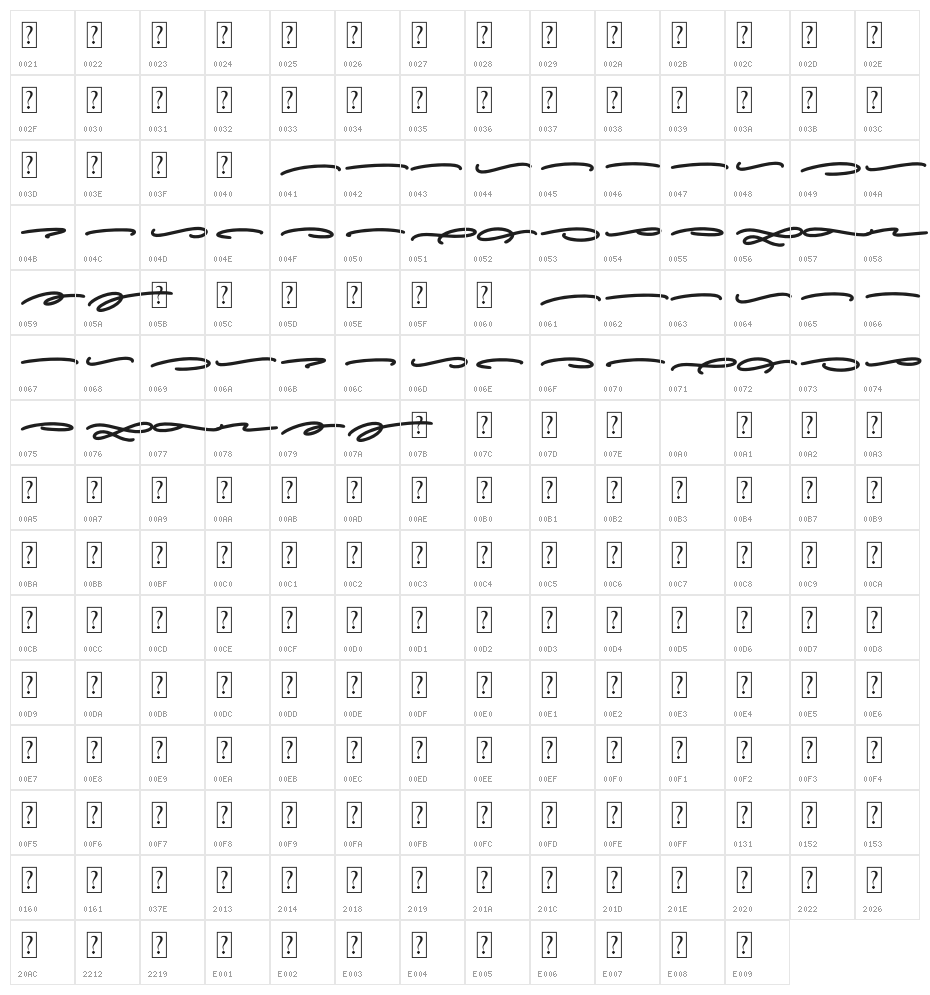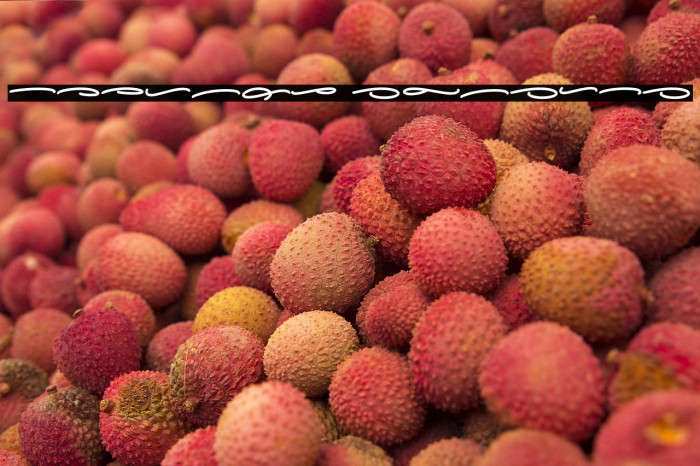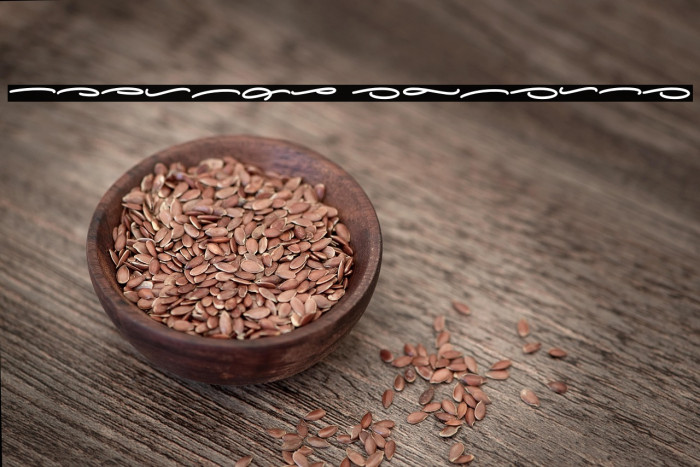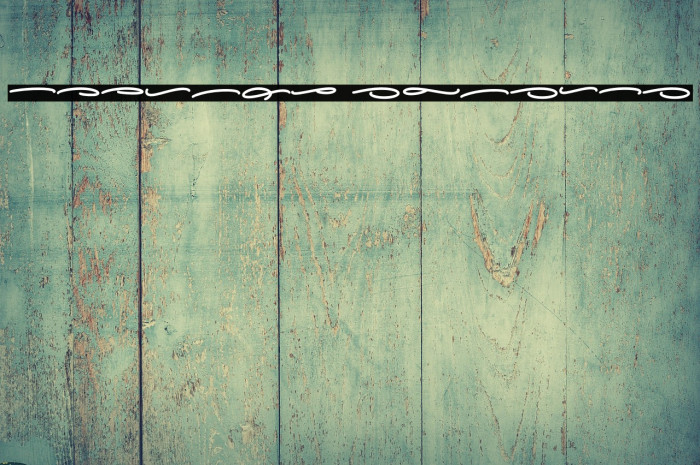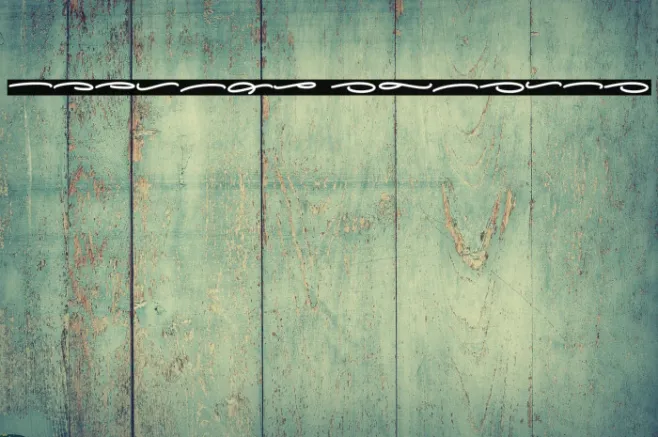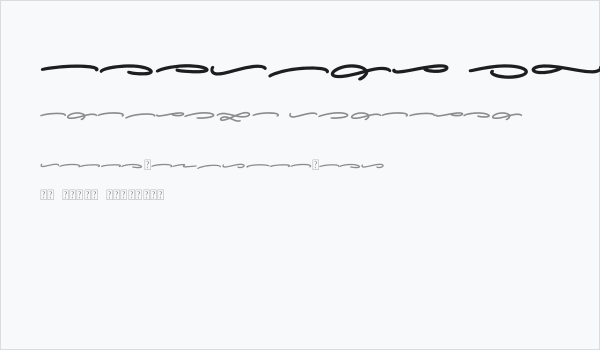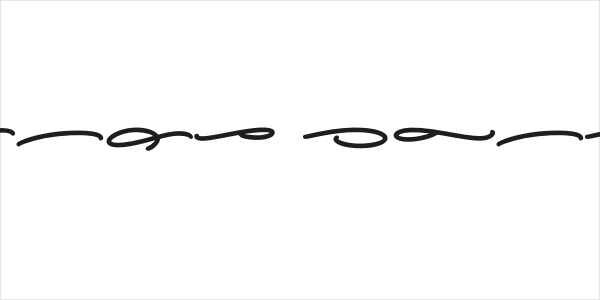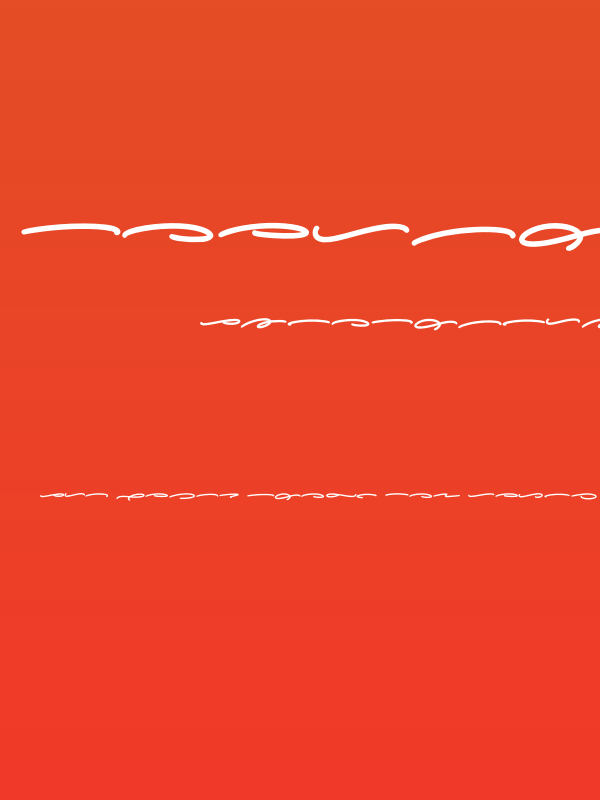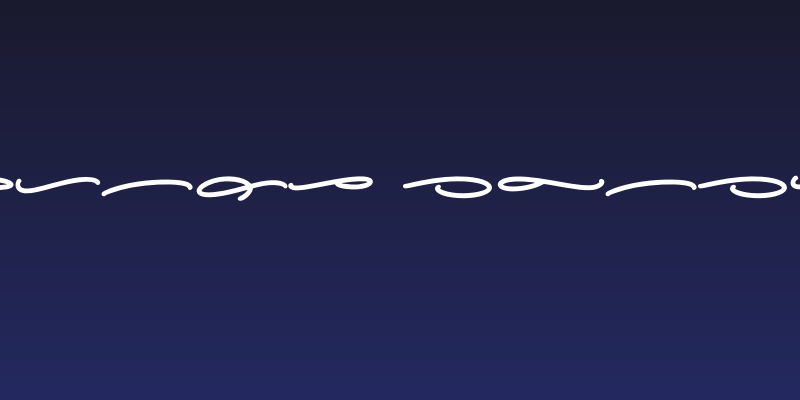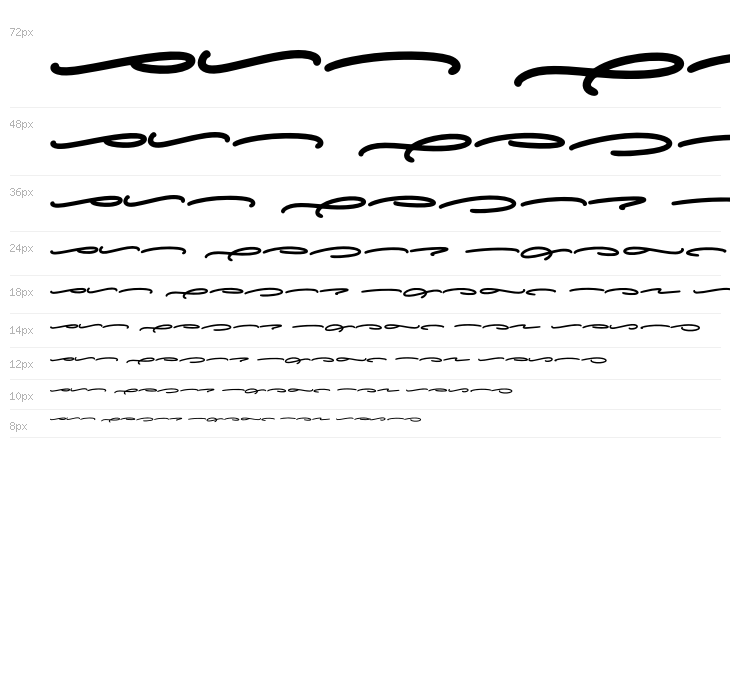
Goudart Swashes Font
Goudart Swashes Description
This is not a valid font. The image contains decorative swashes and question marks, which do not represent a complete or usable typeface. The elements appear to be ornamental and are likely intended for embellishment rather than functional text use.
| Use Case | Decorative elements, embellishments |
| Proposed Projects | These elements could be used for decorative borders or embellishments in graphic design projects. |